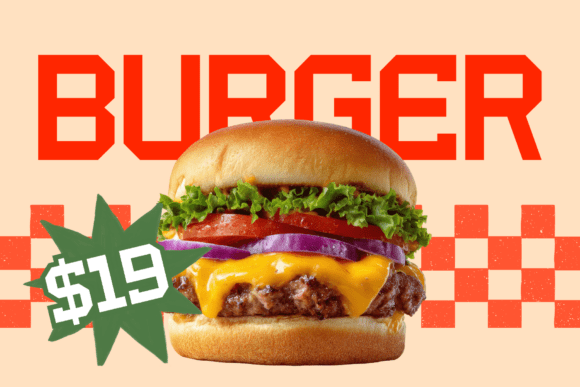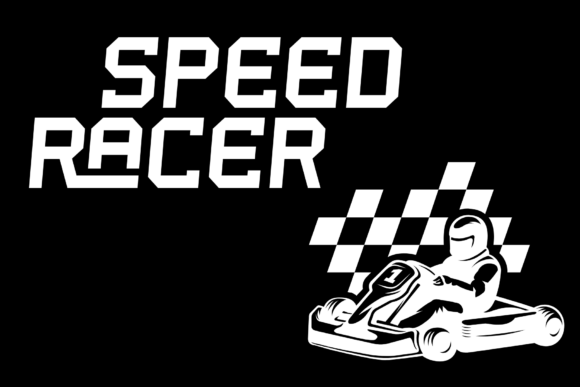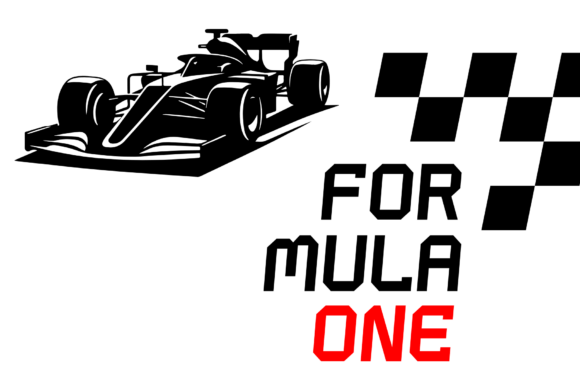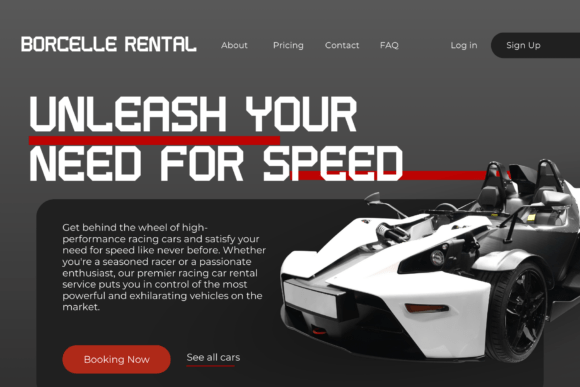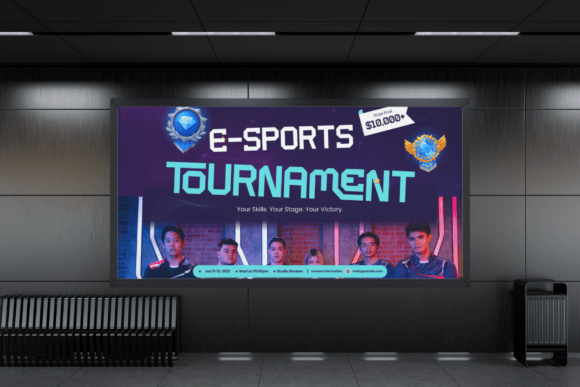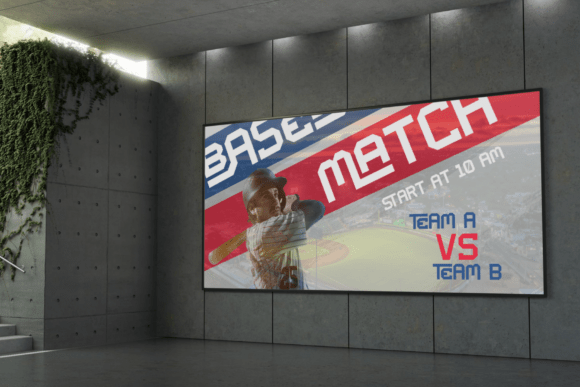
Introduction to Dugout Font
Dugout is a bold and wide baseball typeface inspired by classic dugout signage, vintage stadium lettering, and professional team branding.
| 👤 Author | Brown Cupple Fonts |
It captures the powerful and confident spirit of baseball through strong block shapes, solid curves, and an unmistakable athletic presence Designed for logos, posters, headlines, packaging, advertising, social media graphics, and sports-themed visual identities, Dugout delivers a clean and impactful look that works perfectly for both modern and retro design styles.
Key Features of Dugout Font
Why Choose Dugout Font?